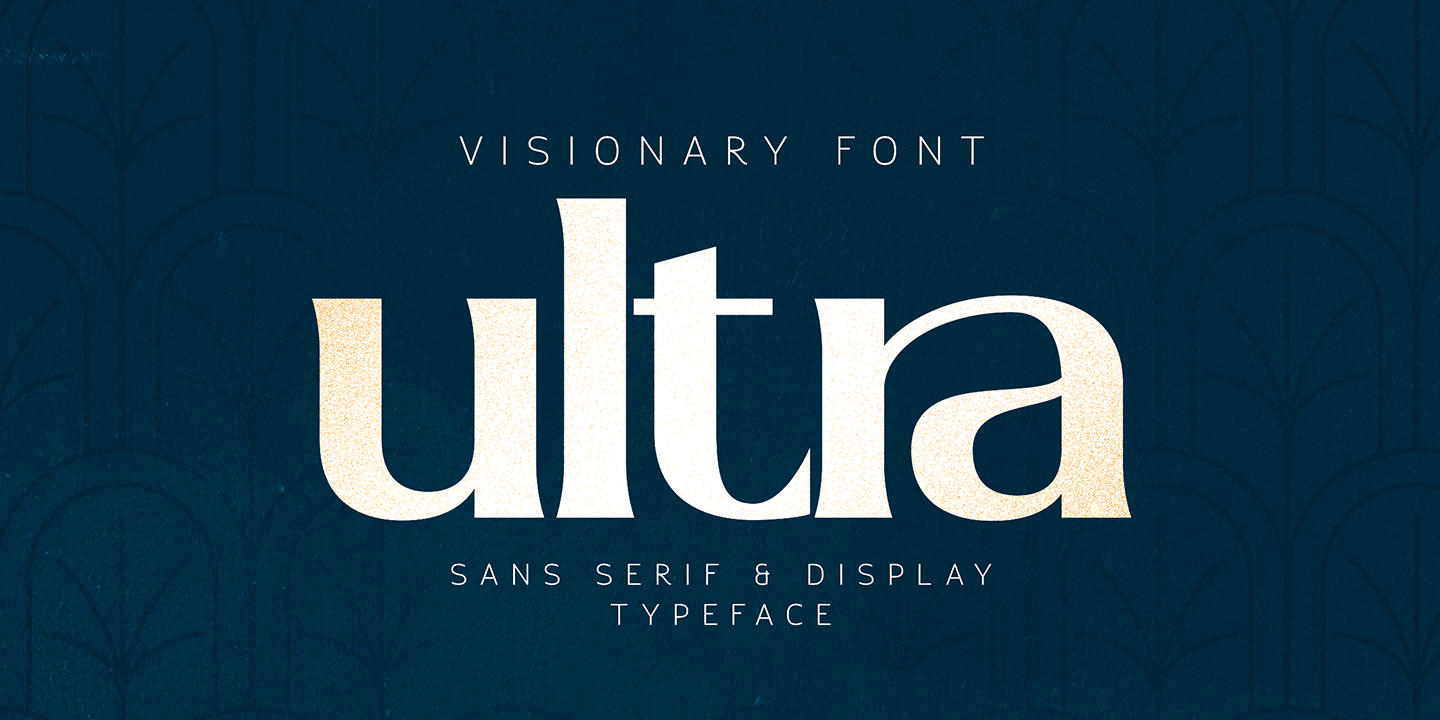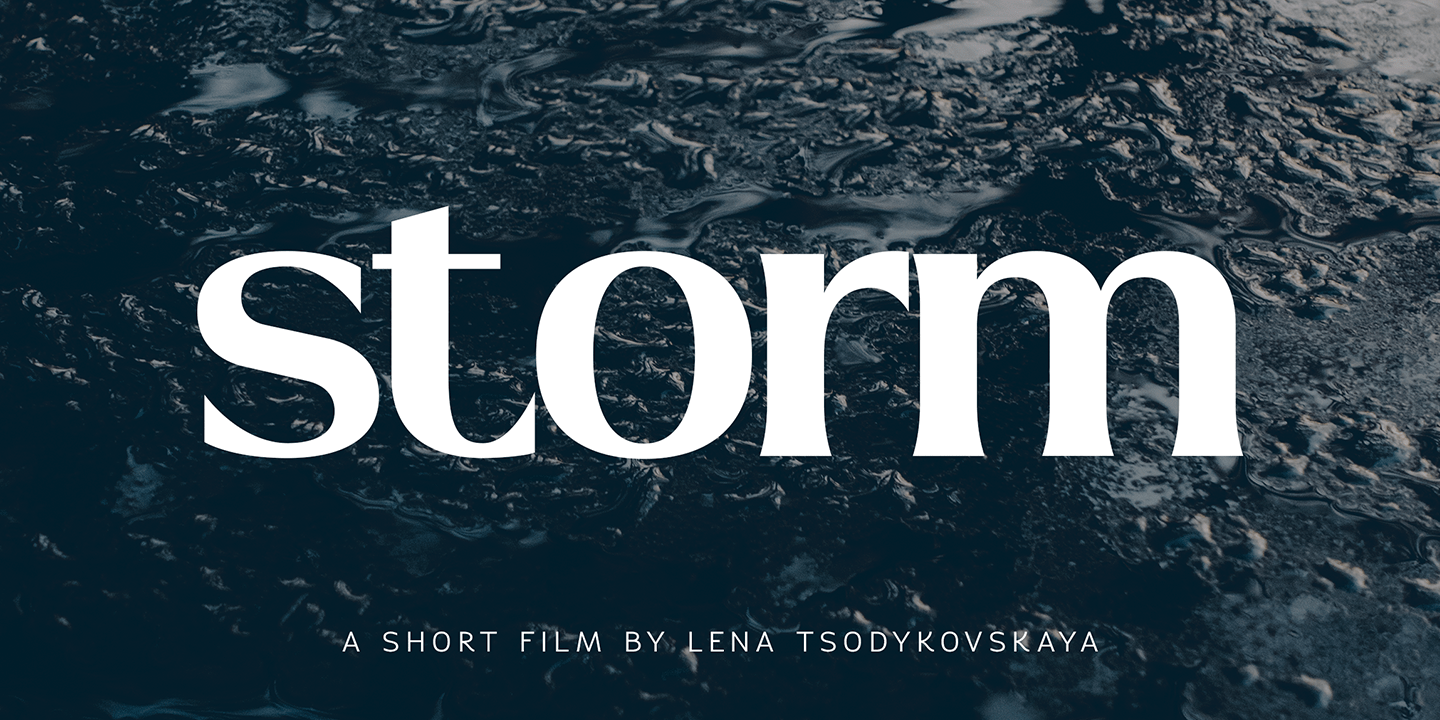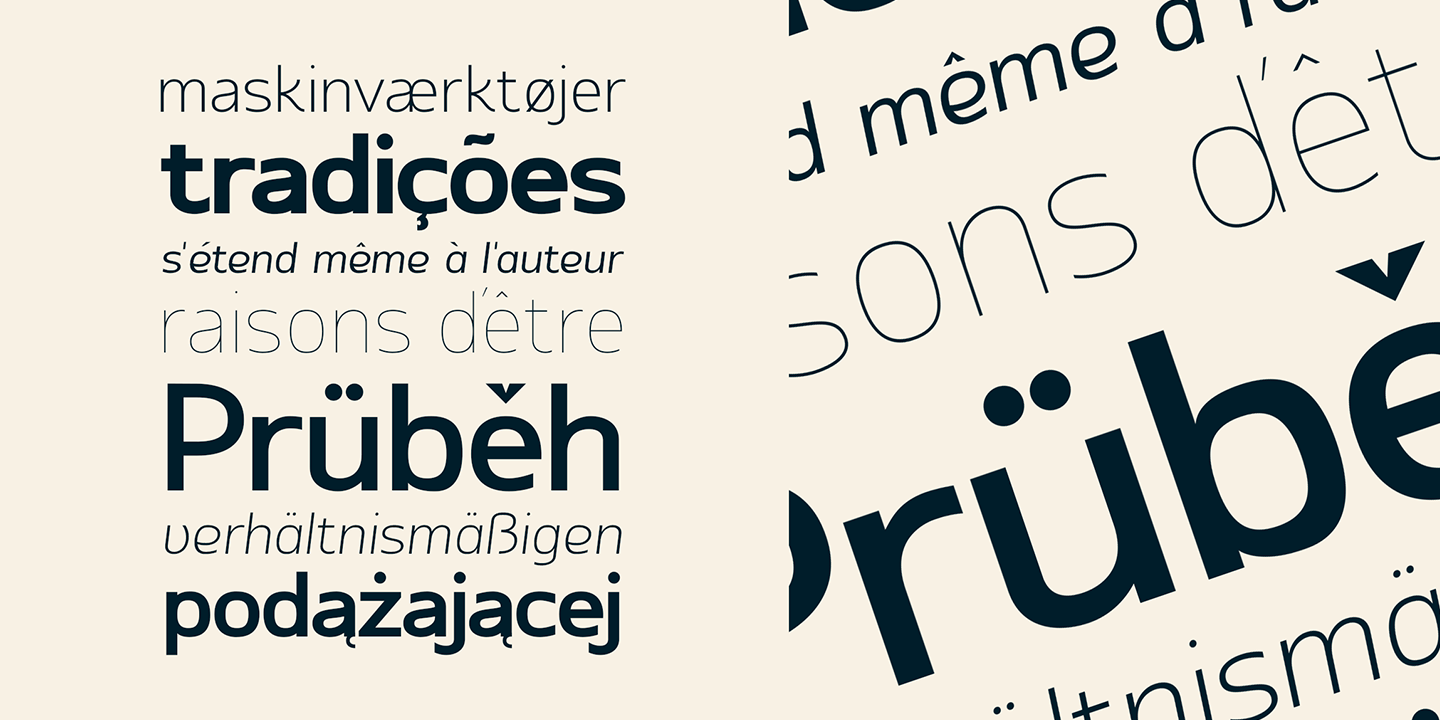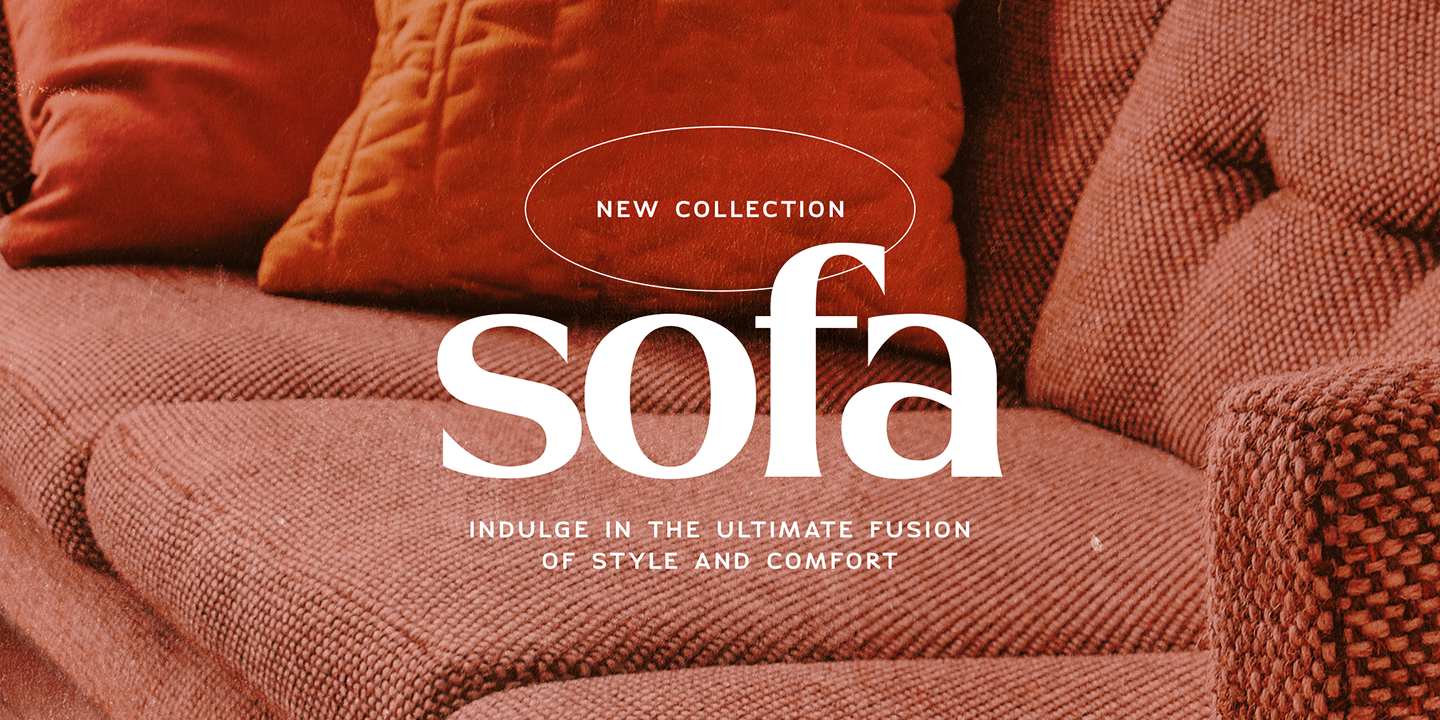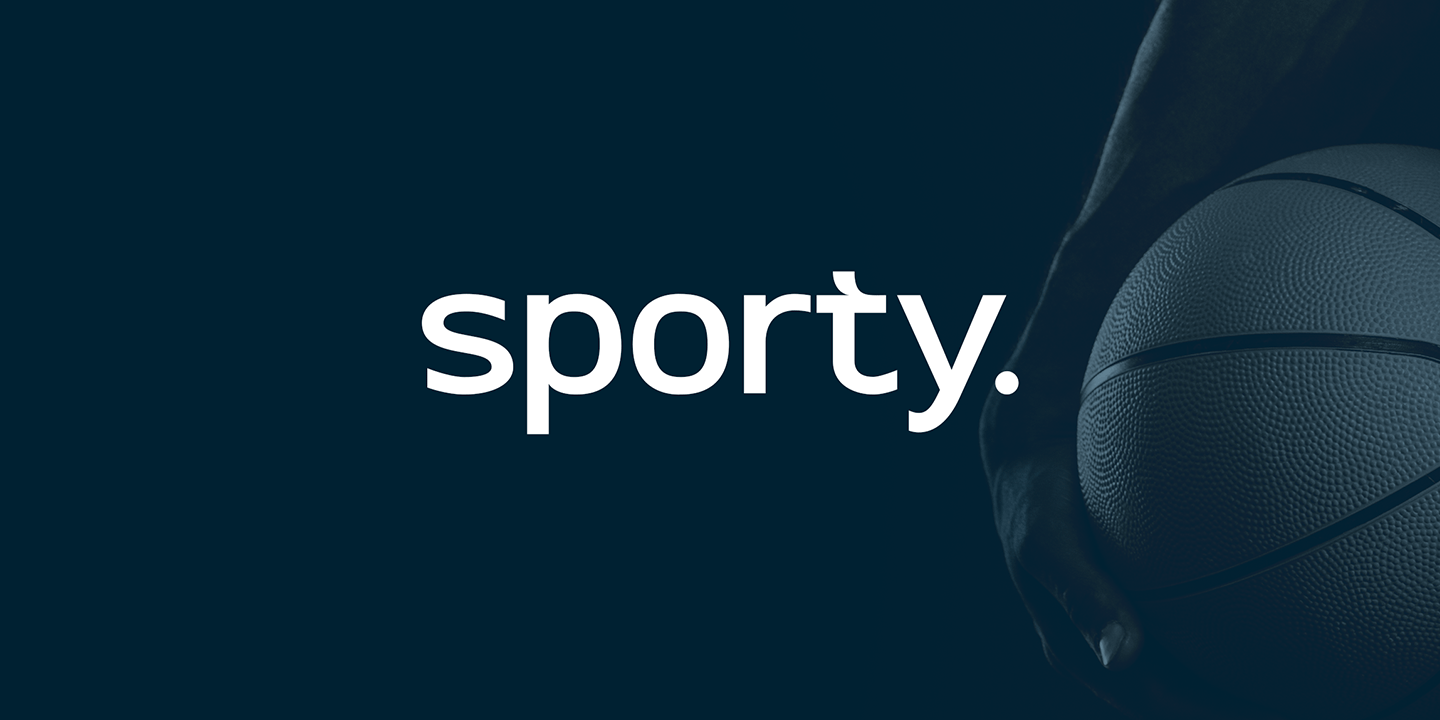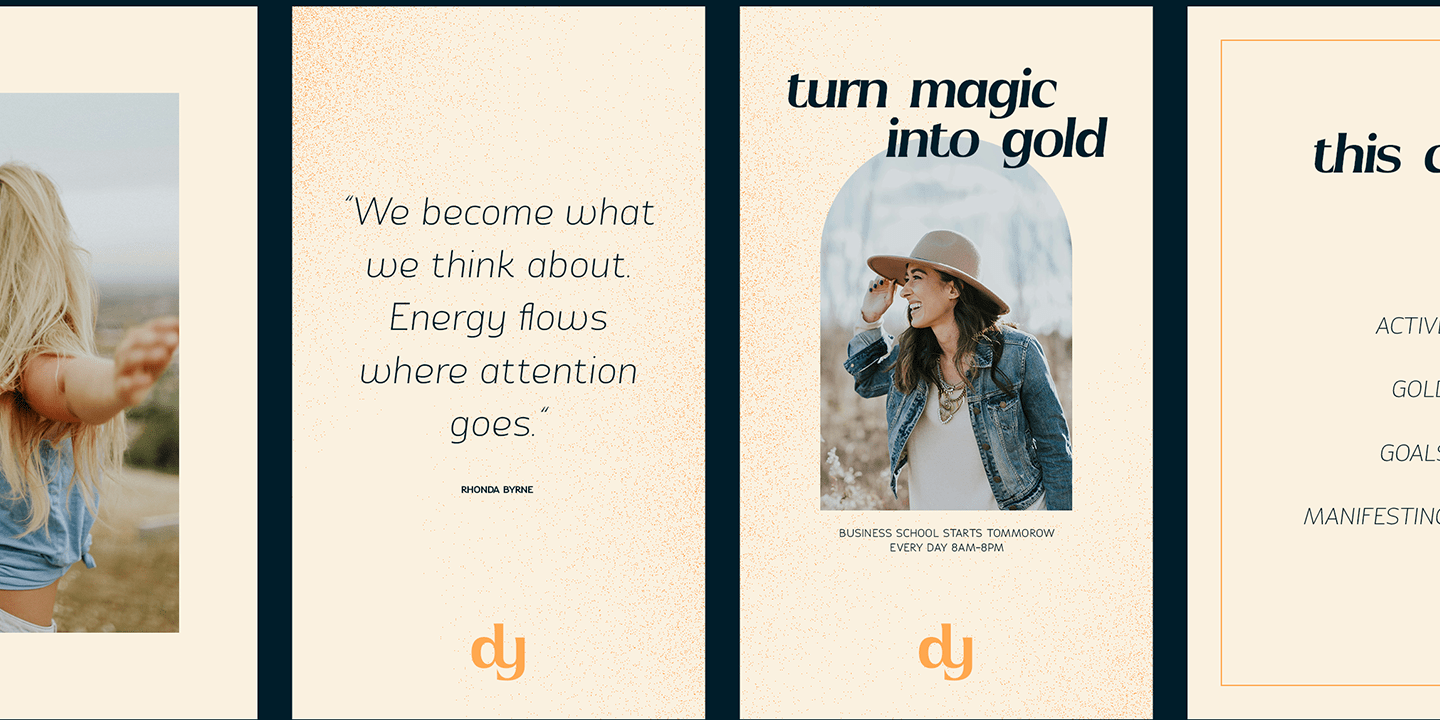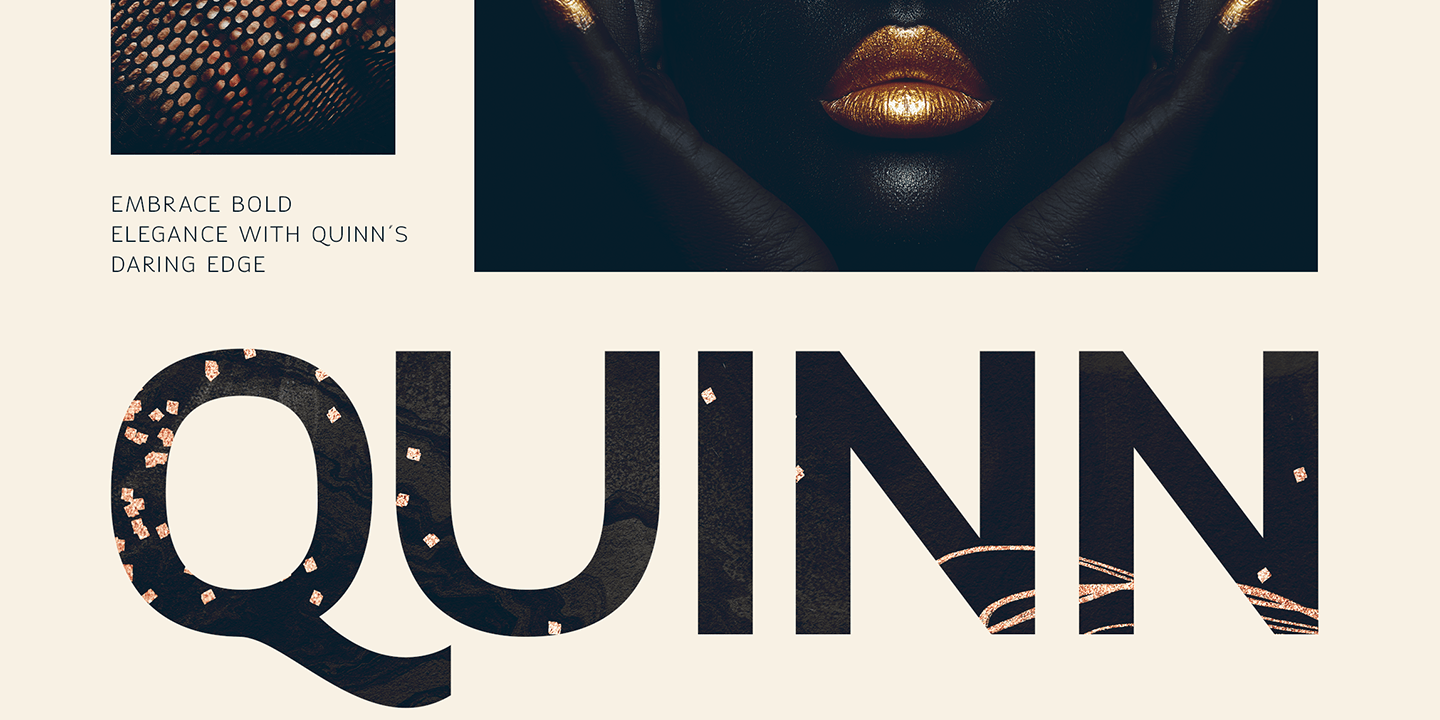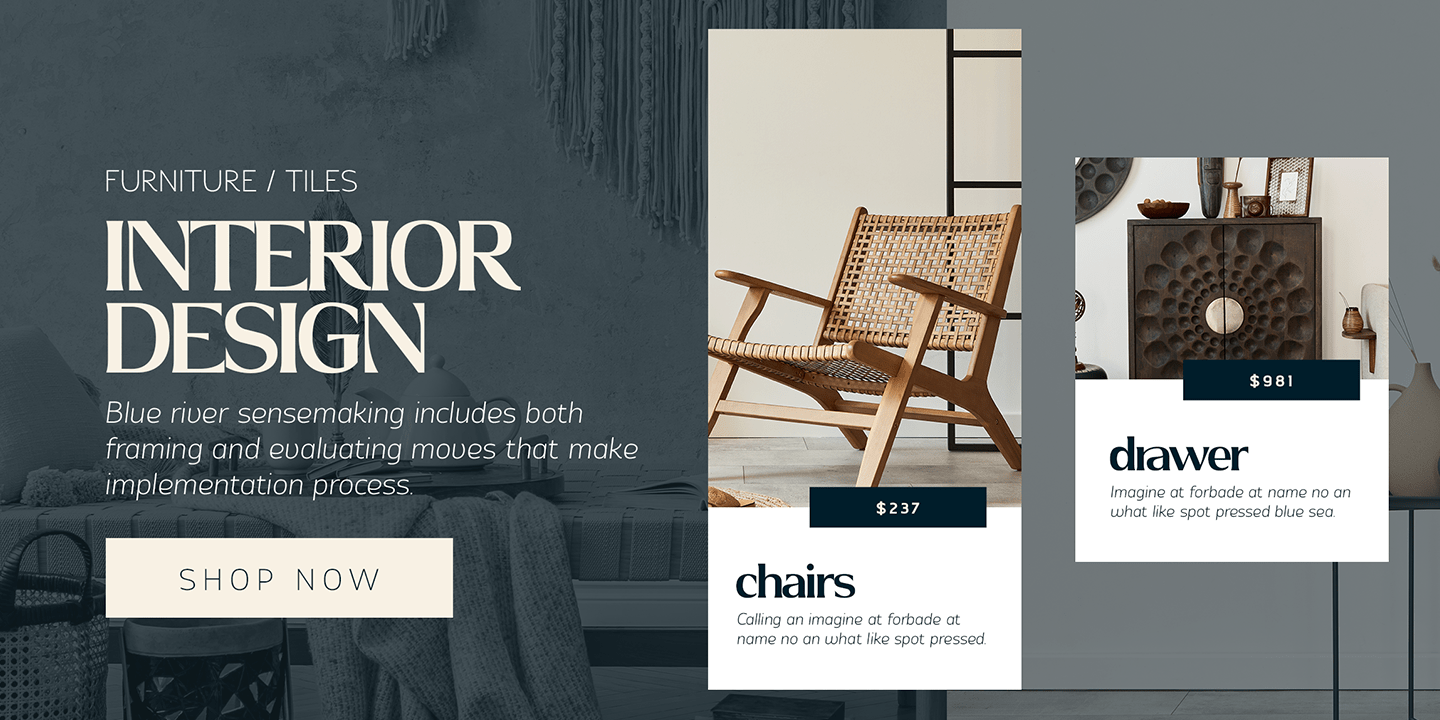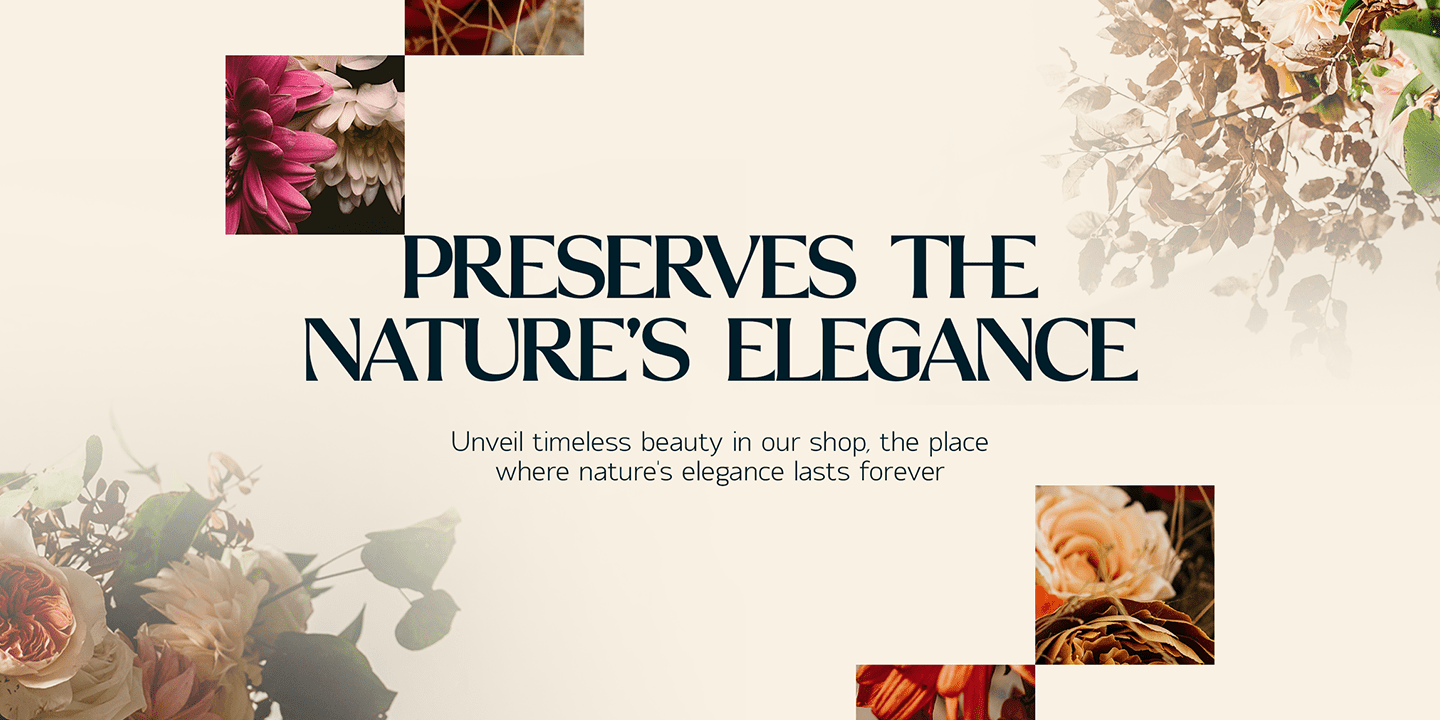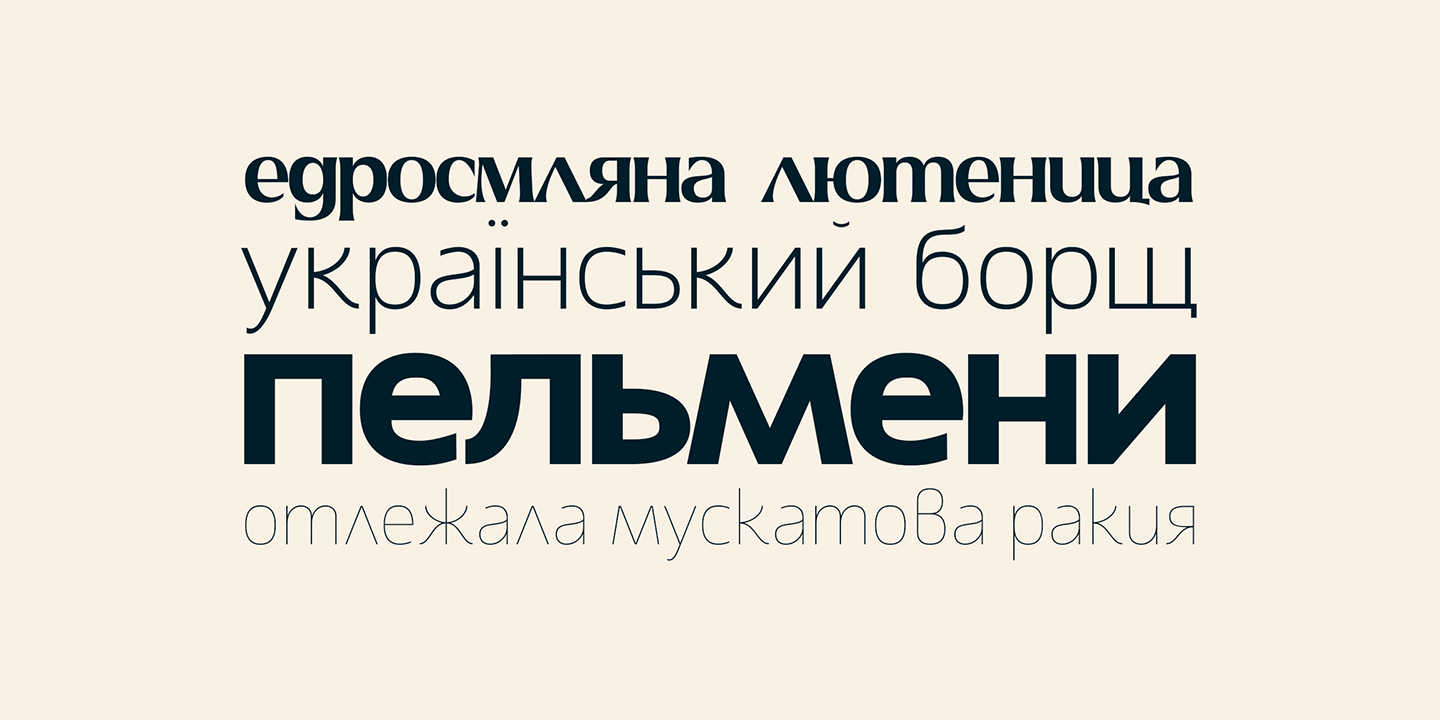
Vfu
Font Family by VP Creative Shop
Buy NowVFU (Visionary Font Ultra) is a versatile typeface with 9 sans serif weights, matching italics, and a unique display version. Designed for modern and creative projects, VFU supports extended Latin, Cyrillic, and Bulgarian Cyrillic scripts, offering alternate and ligature glyphs for added design flexibility. Ideal for headlines, branding, and editorial use, this typeface brings a visionary touch to any layout.